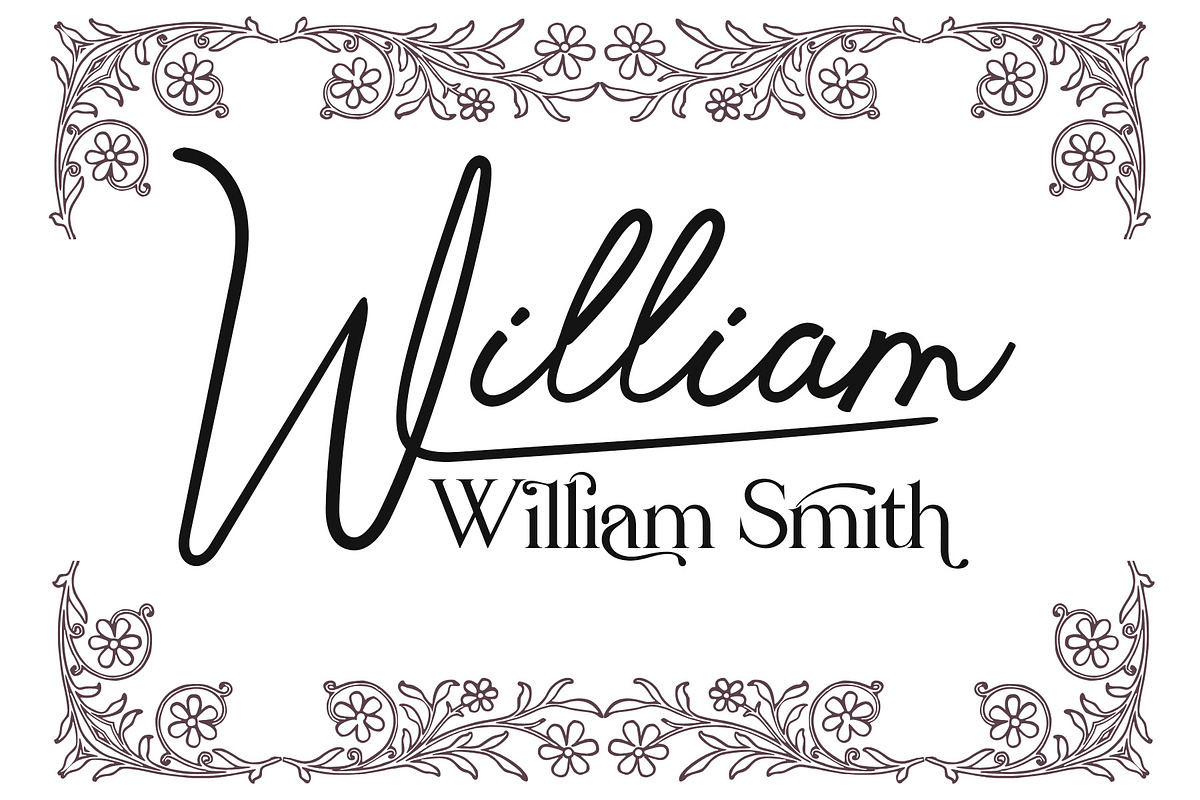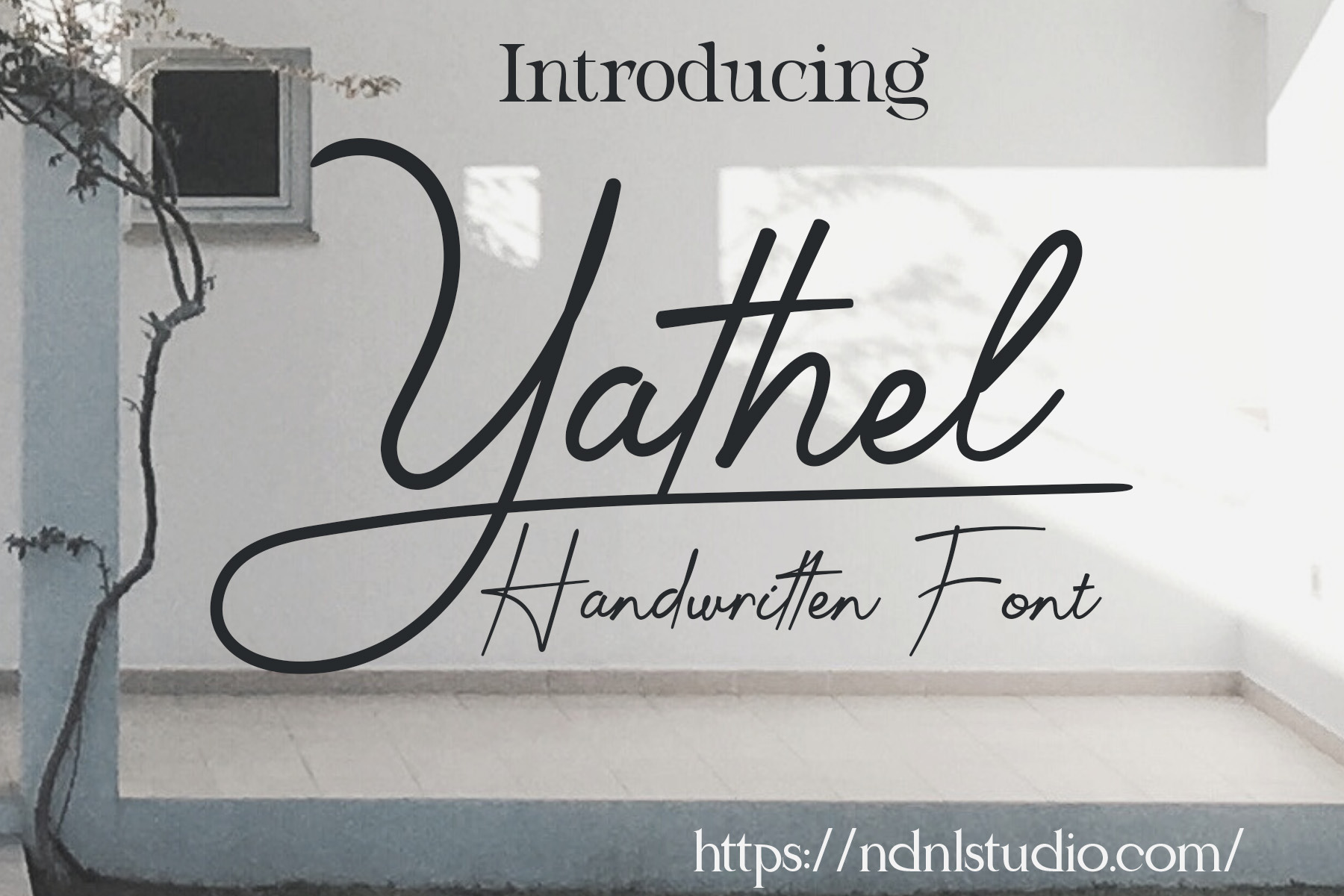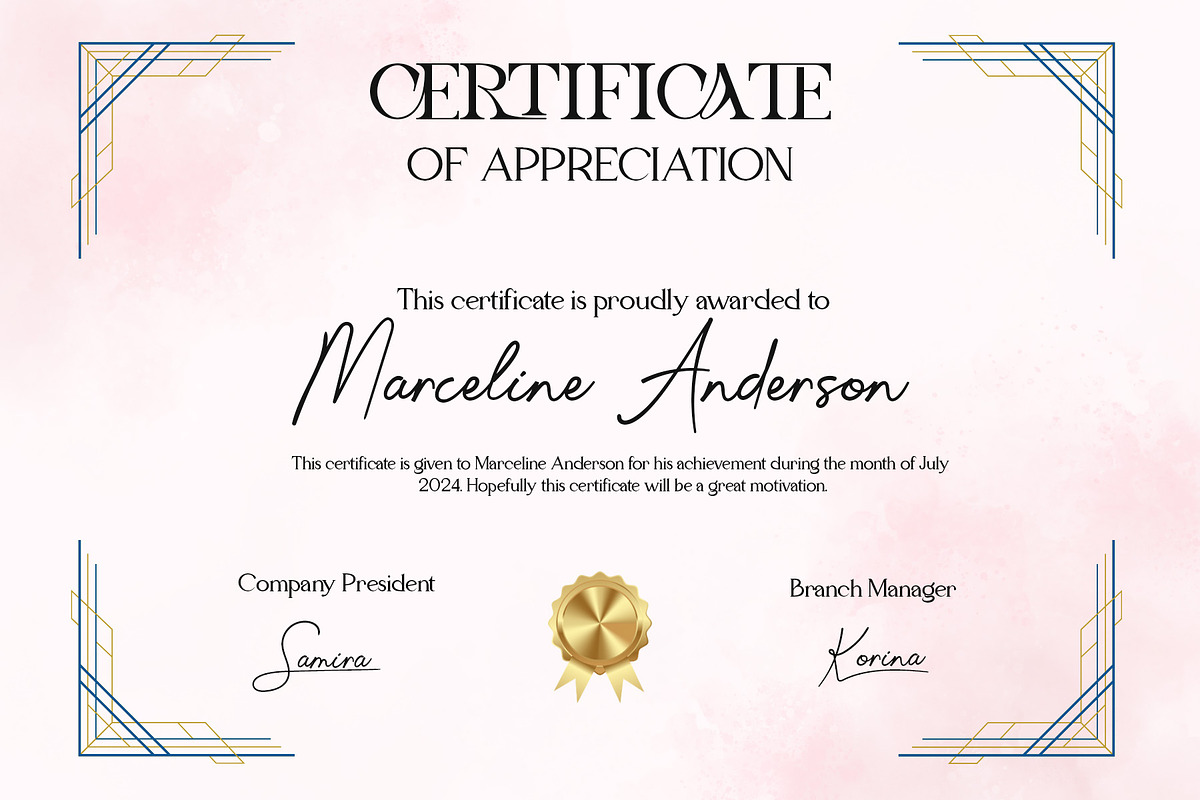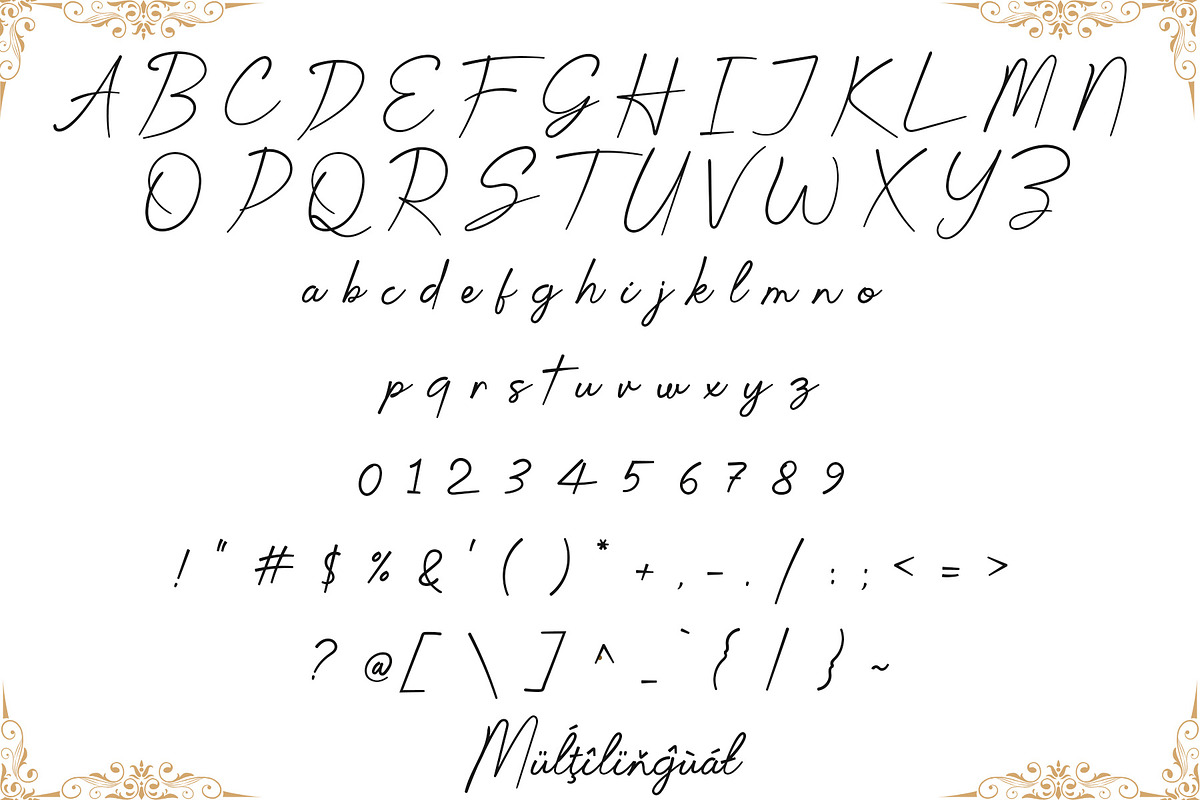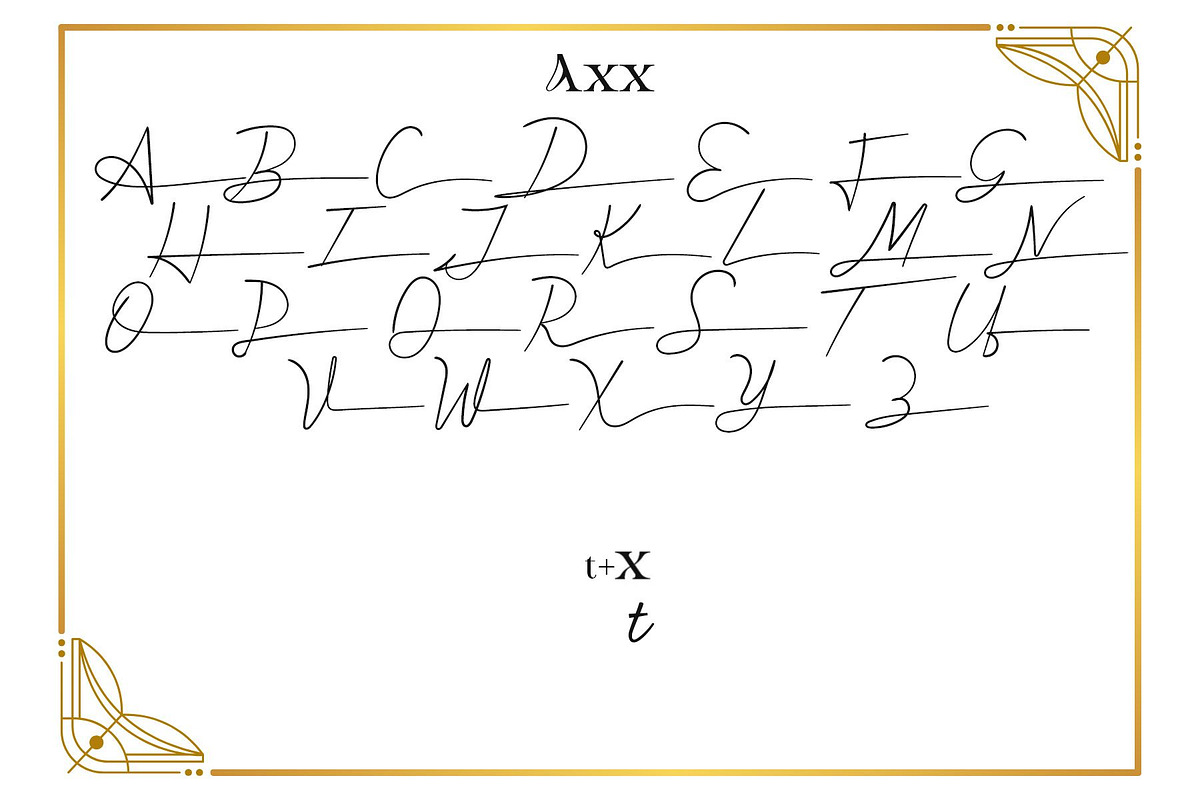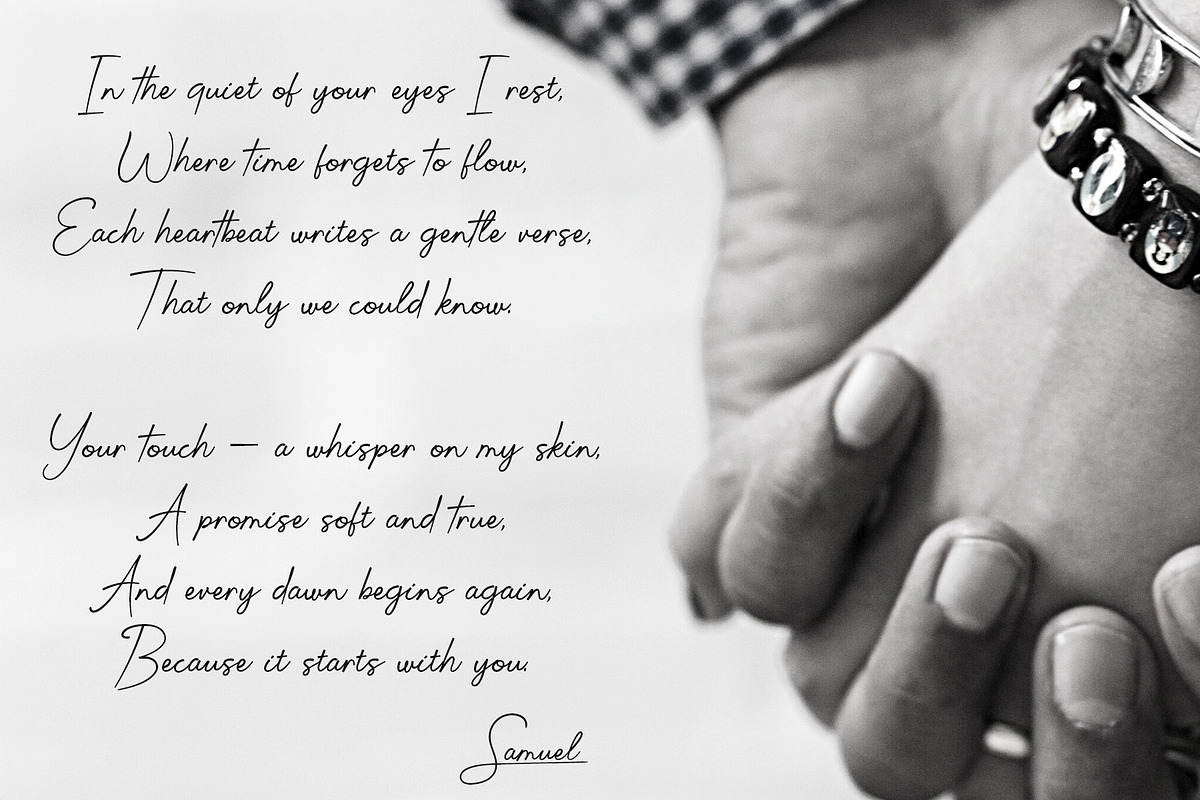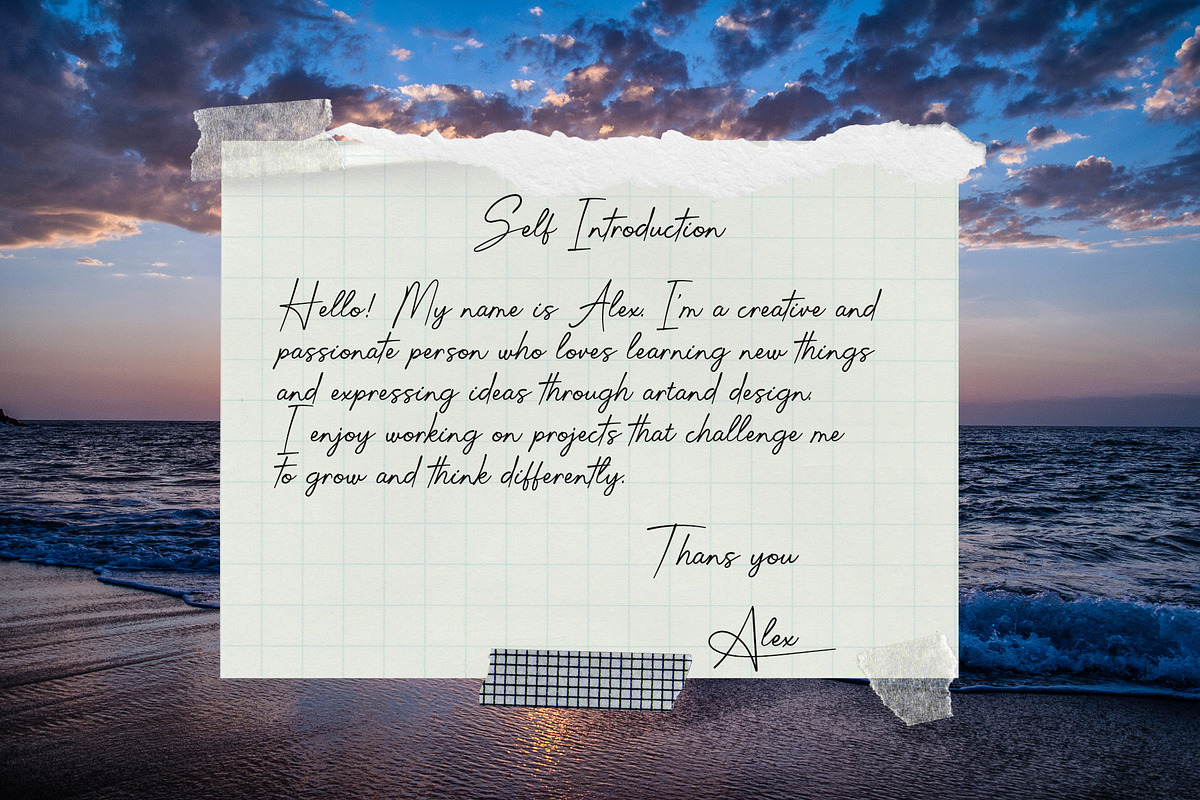
Yathel – Handwritten Font
Introducing Yathel!
Yathel is a soft and elegant handwritten typeface designed to capture the beauty of natural pen strokes. With smooth curves, gentle slant, and a warm, personal feel, this font is perfect for sophisticated projects such as invitations, branding logos, packaging designs, artistic quotes, and any creative work that calls for elegance. Every character is crafted with care to maintain both aesthetic harmony and practical usability, allowing you to create expressive and captivating designs with ease.
If the software you are using does not fully support OpenType features (such as Stylistic Alternates), you can still access the decorative characters of the font using the following method:
Examples:
- Axx → Decorative A (if available)
- aX → Decorative a (if available)
And also:
- AxX → Decorative A2 (if available)
- aXX → Decorative a2 (if available)
- aXXX → Decorative a3 (if available)